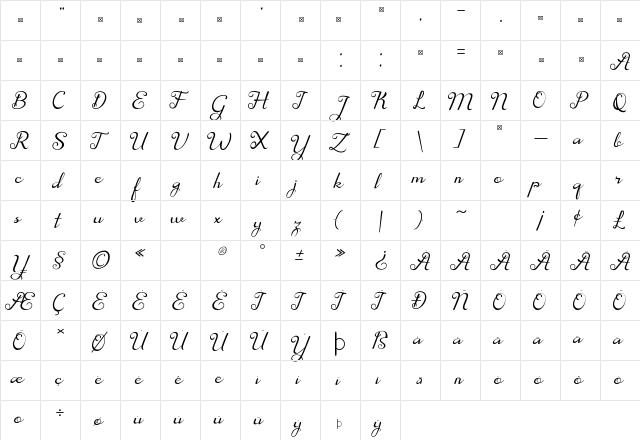
Velisya Regular
| Foundry | Yunita Ecy |
| Designer | Yesie Erma Yunita |
Design Context for Velisya Typeface
Velisya is a composed and adaptable typeface that performs quietly and consistently across a wide range of design contexts.